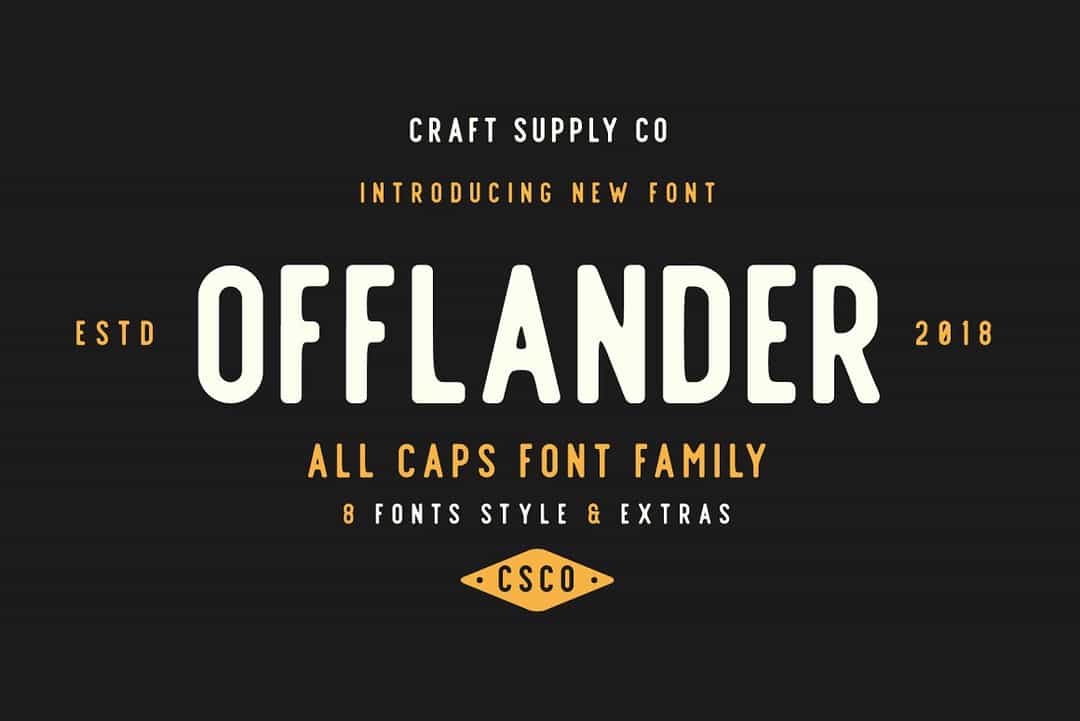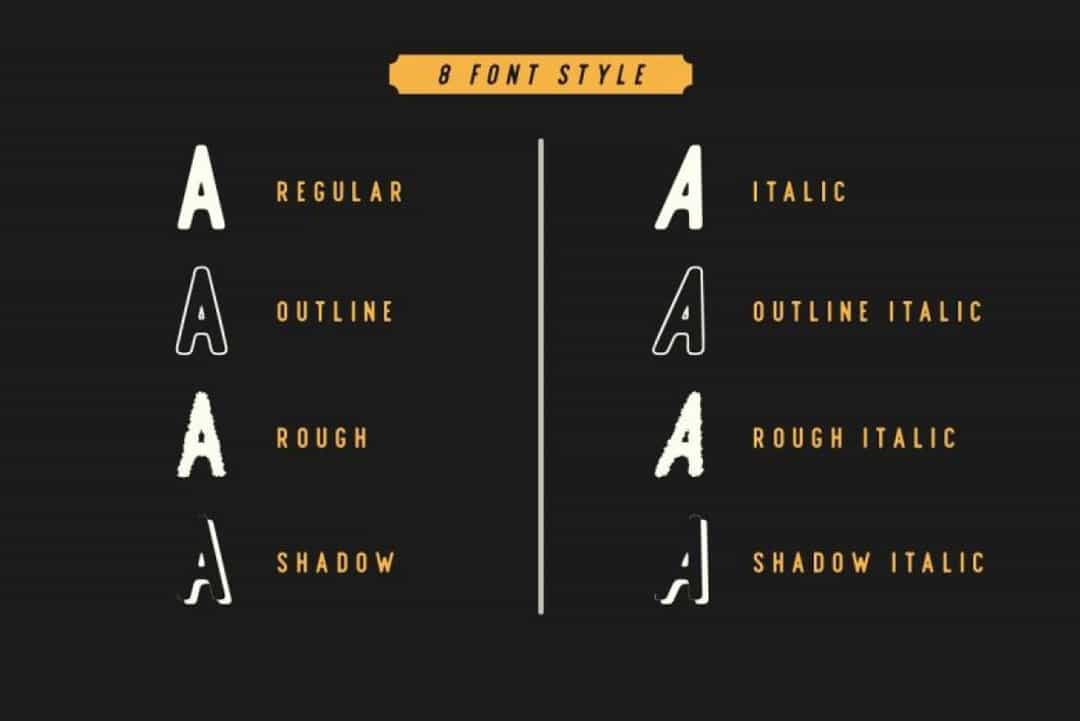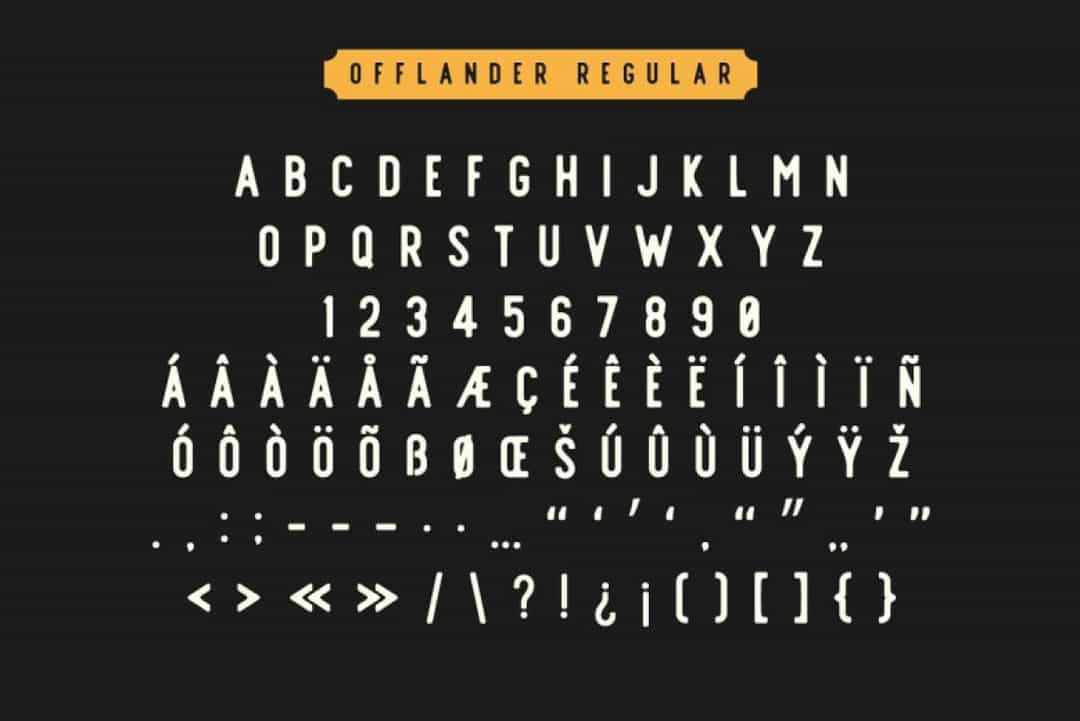
Offlander Font
Discover Offlander Font, part of the   Sans Serif  Logos collection—a versatile and unique font perfect for adding a personal touch to your projects. Download it for free and enjoy crafting designs with style, from invitations to social media posts. This font is available exclusively for personal use, giving you the freedom to create without limits. Unlock your creativity with Offlander Font today!
Offlander All Caps Sans Font Family can be used to design virtually any kind of design work, from printed materials to web pages. With just a bit of creativity and graphic design elements included as extras, your project will appear more vibrant and appealing than ever using Offlander All Caps Font Family. All Caps Font Family.